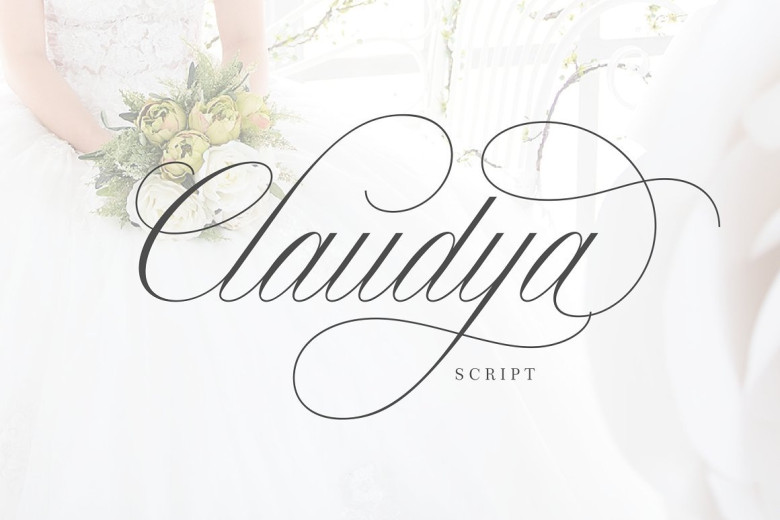
Claudya Script Font
Introducing Claudya! It is was designed and shares by herlannawwi. ClaudyaScript is a beautiful font. Claudya Script is perfect for branding, wedding invites and cards, magazine covers, advertising banners and more. Equipped with some alternative characters, will make the design more varied and unique.